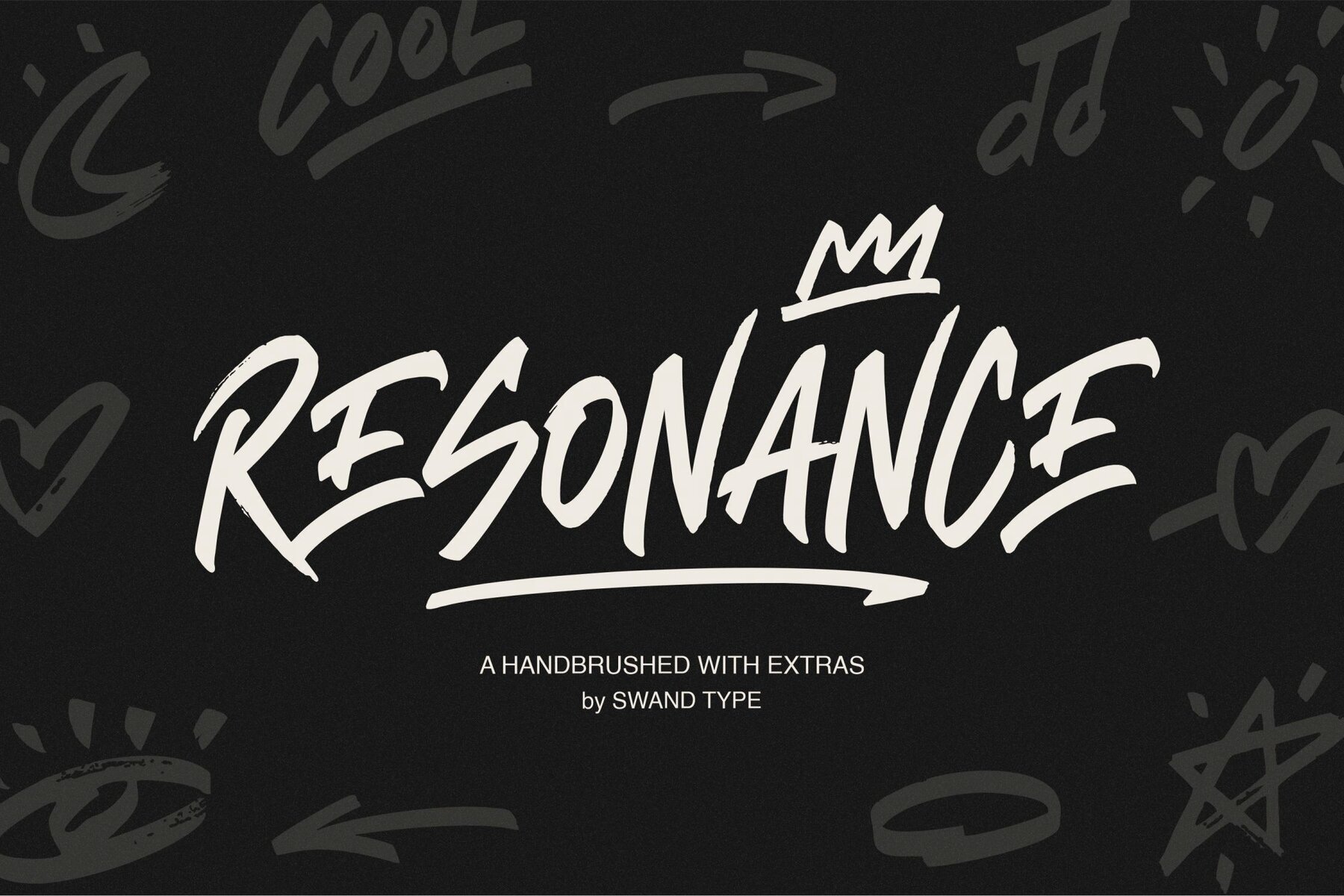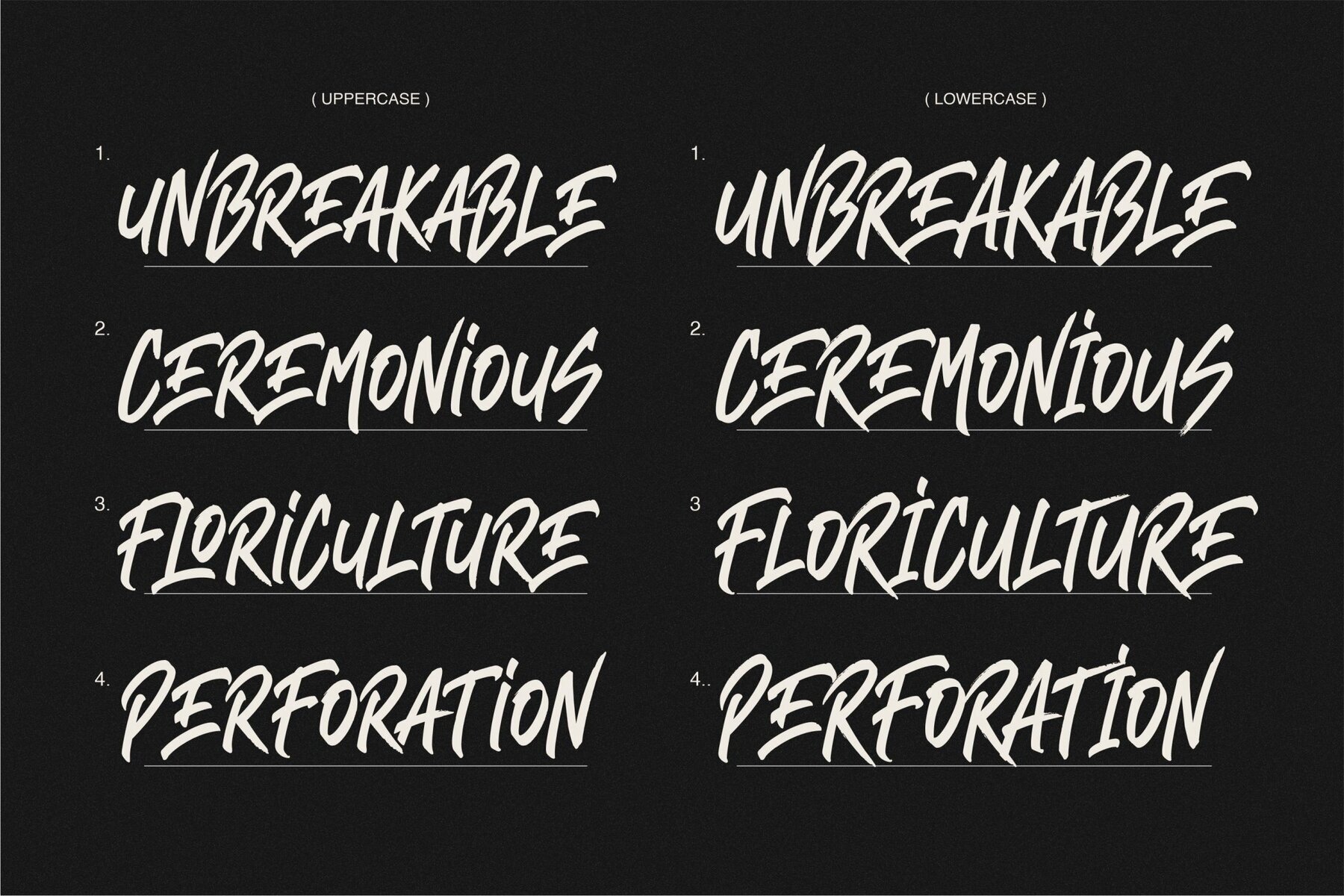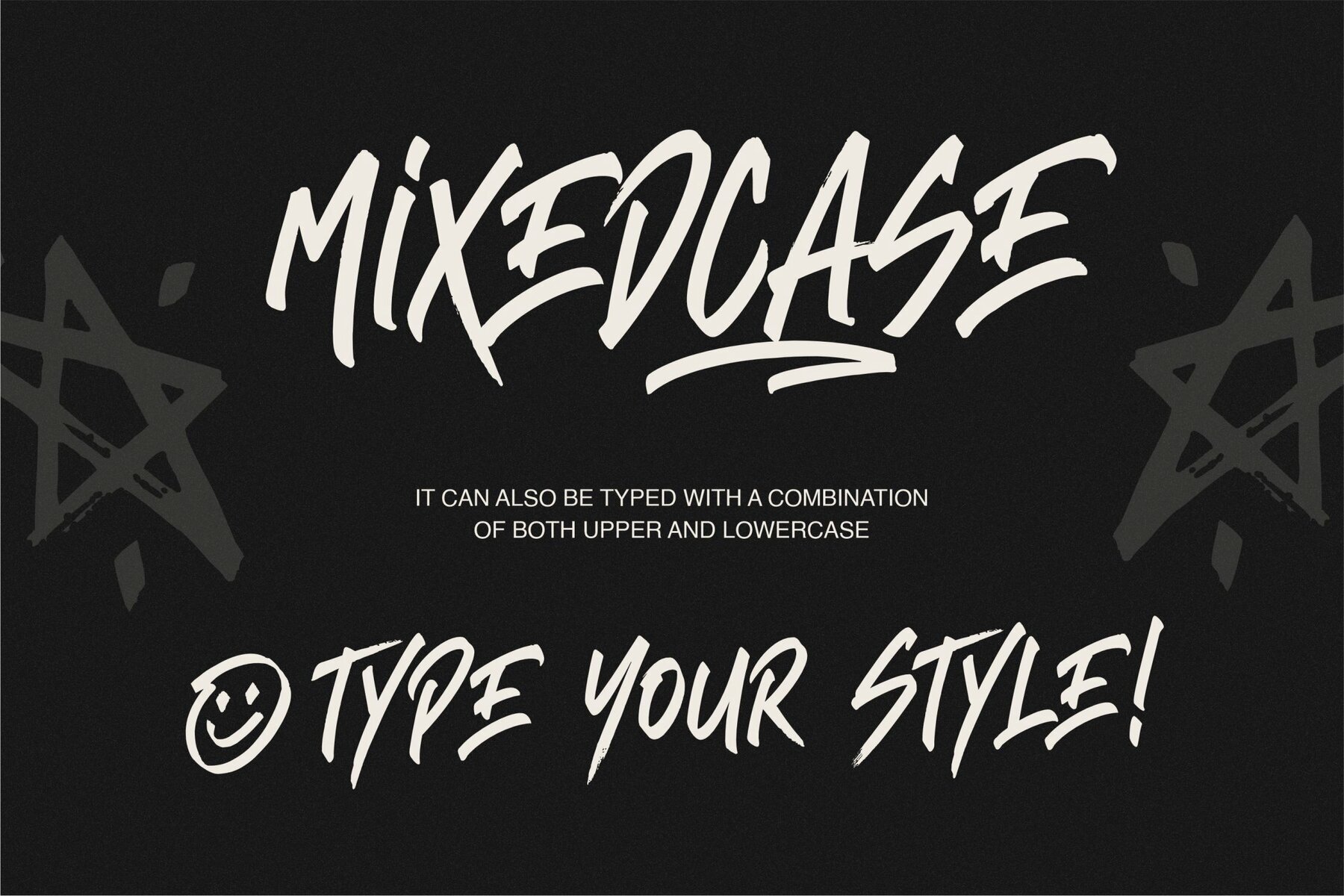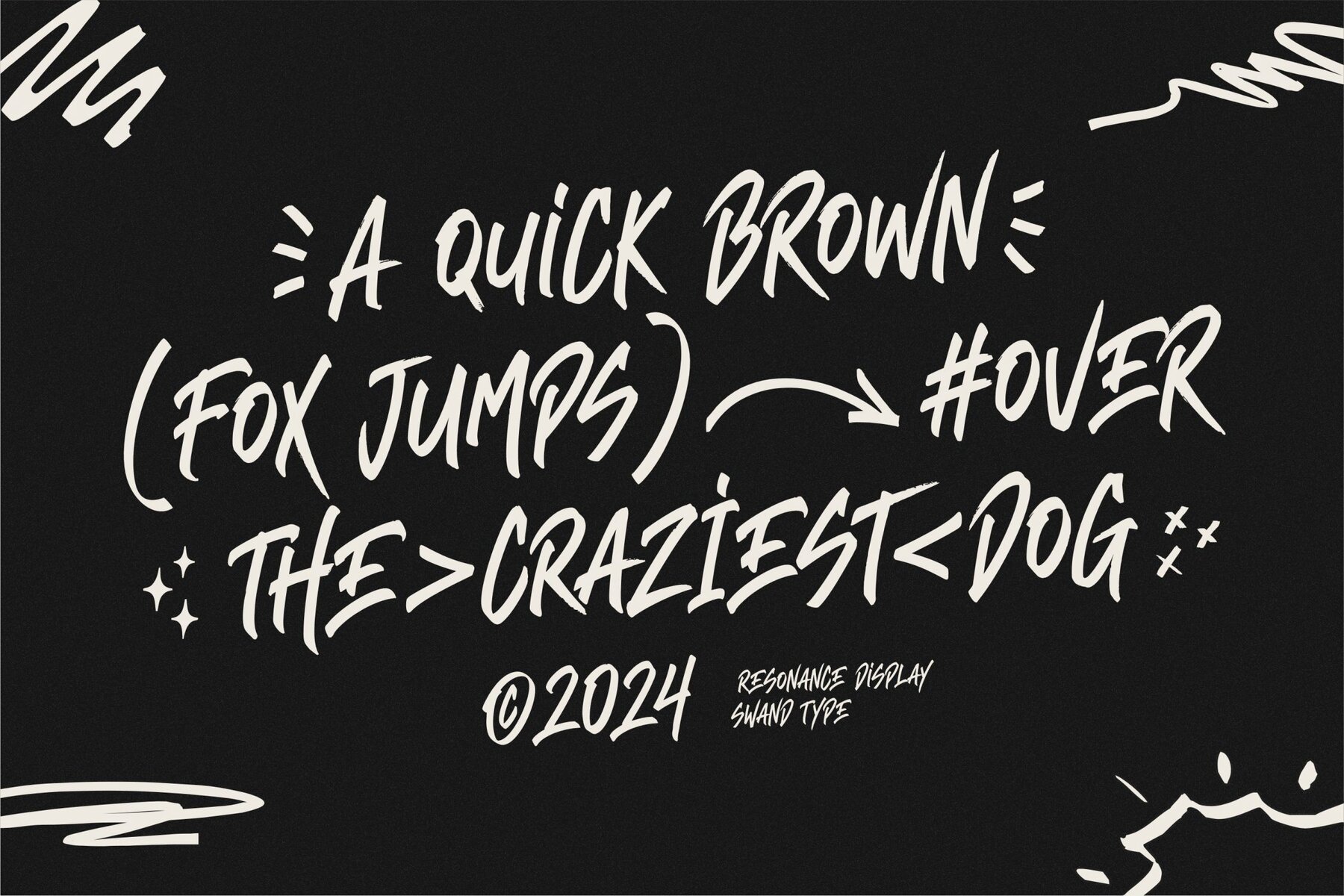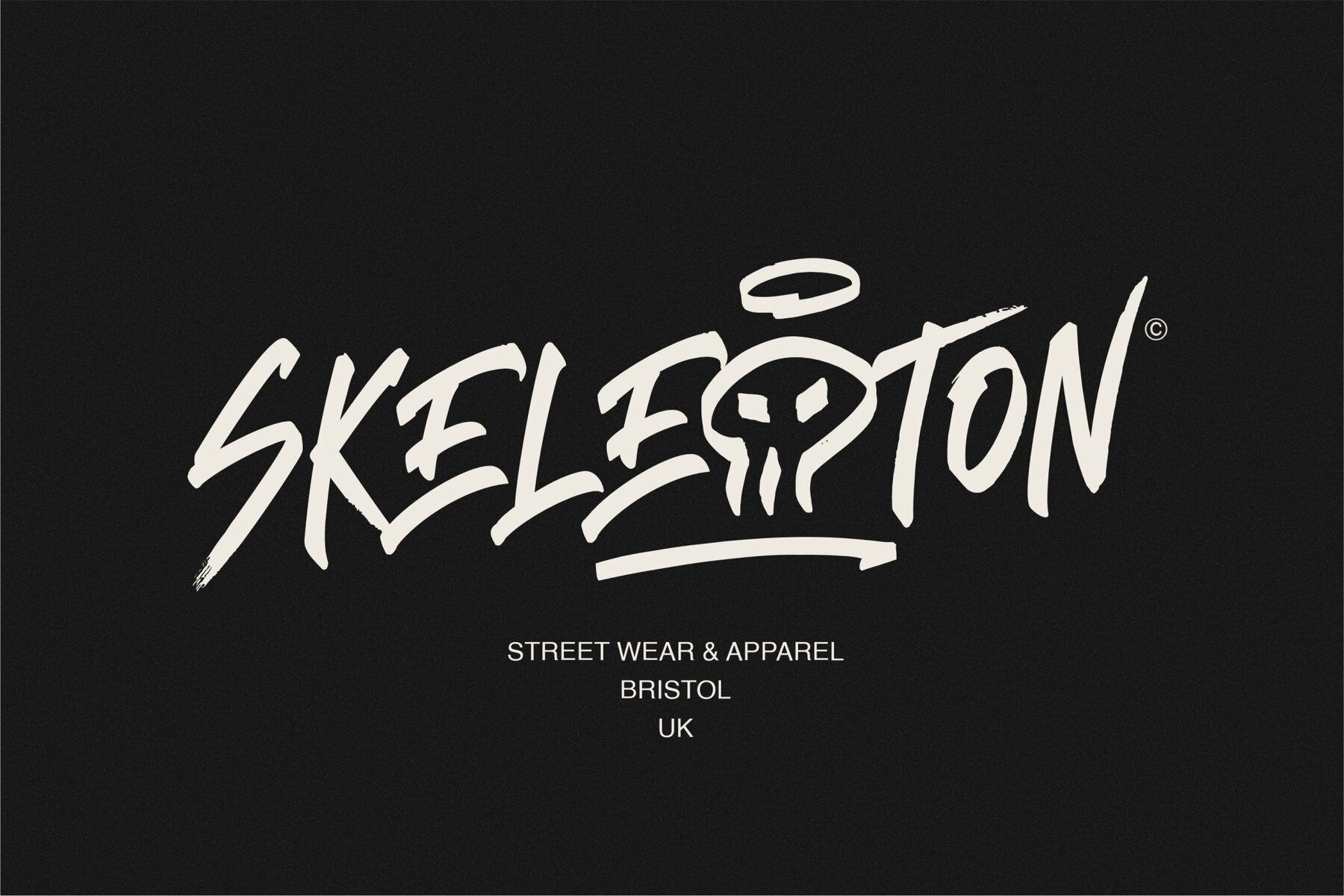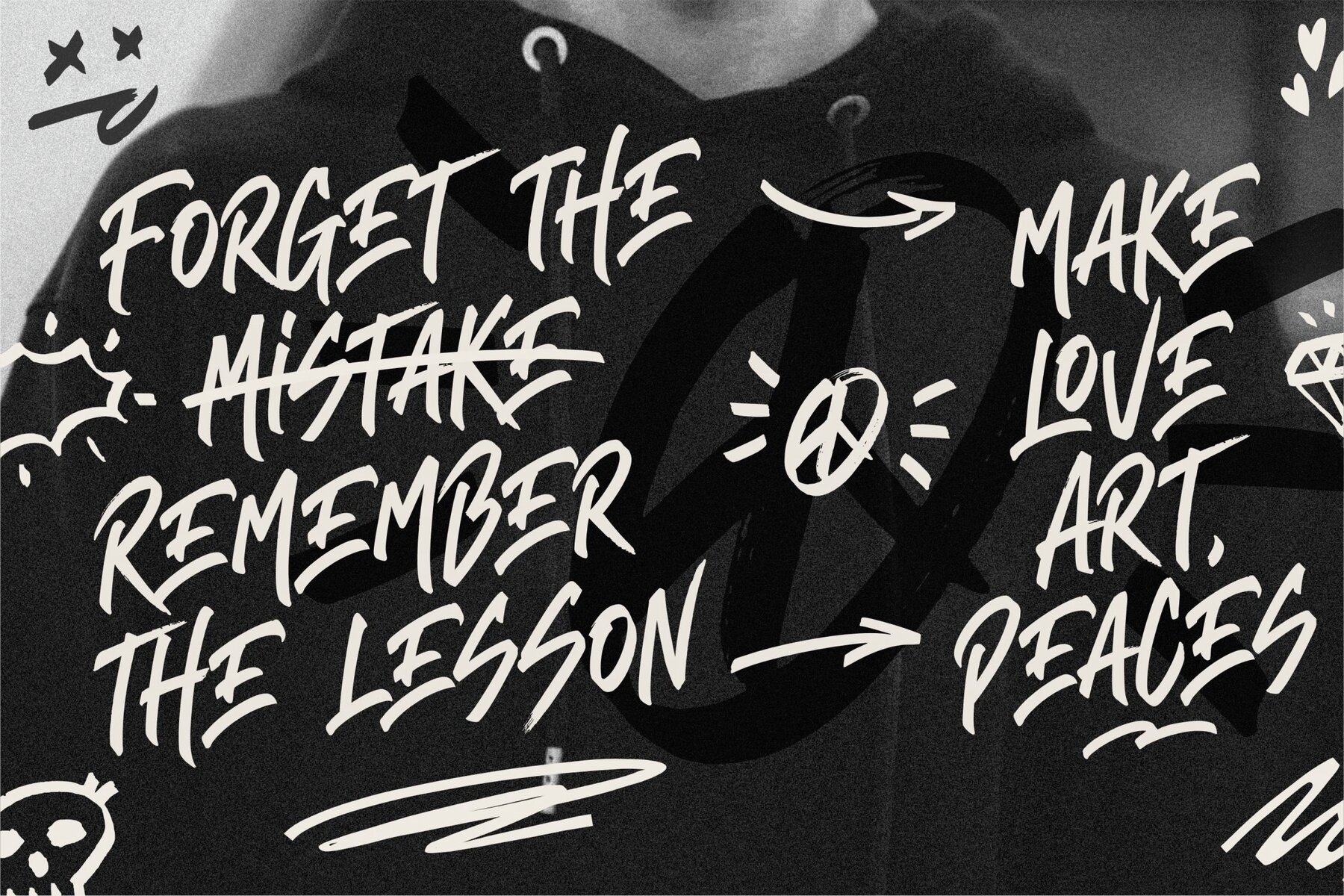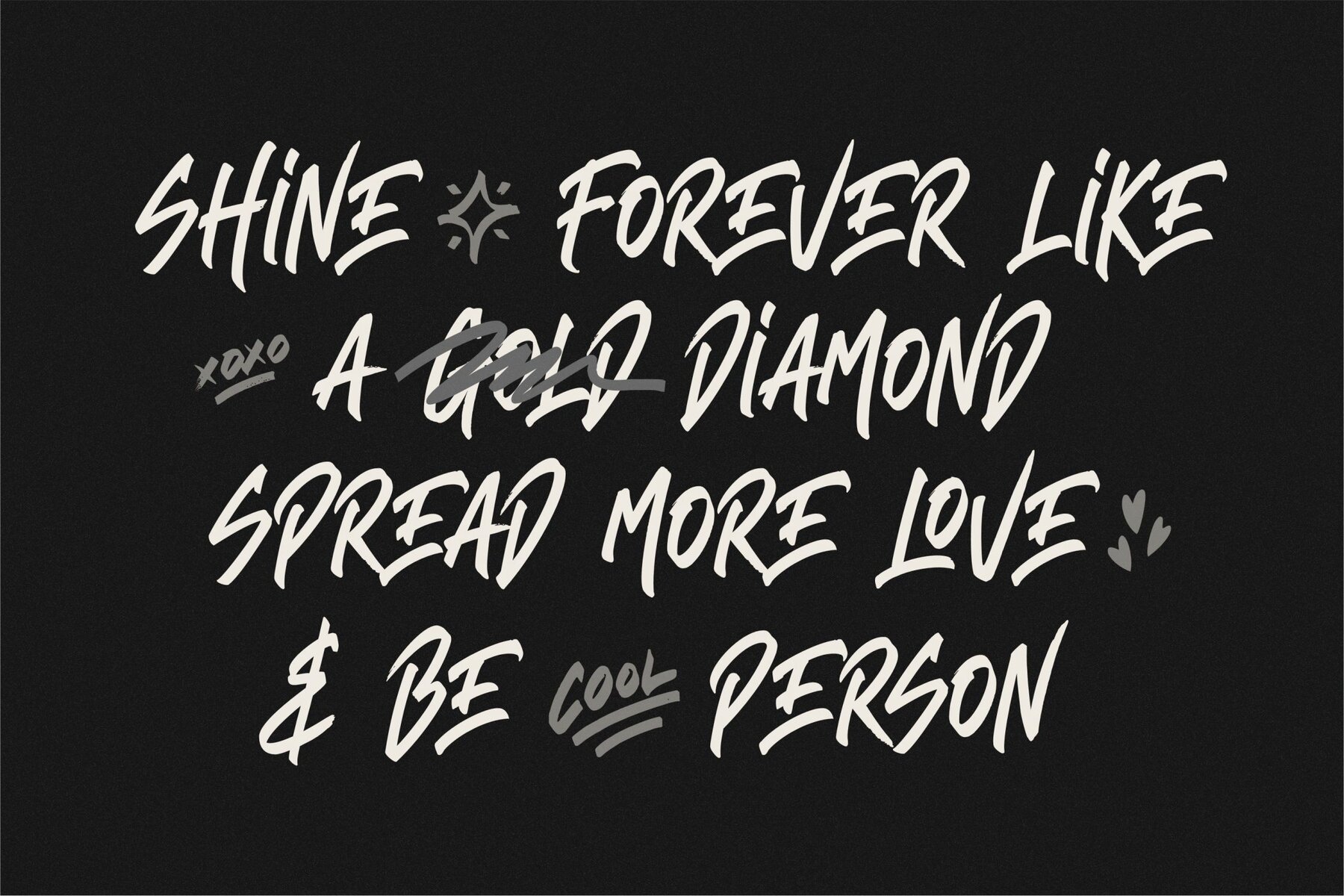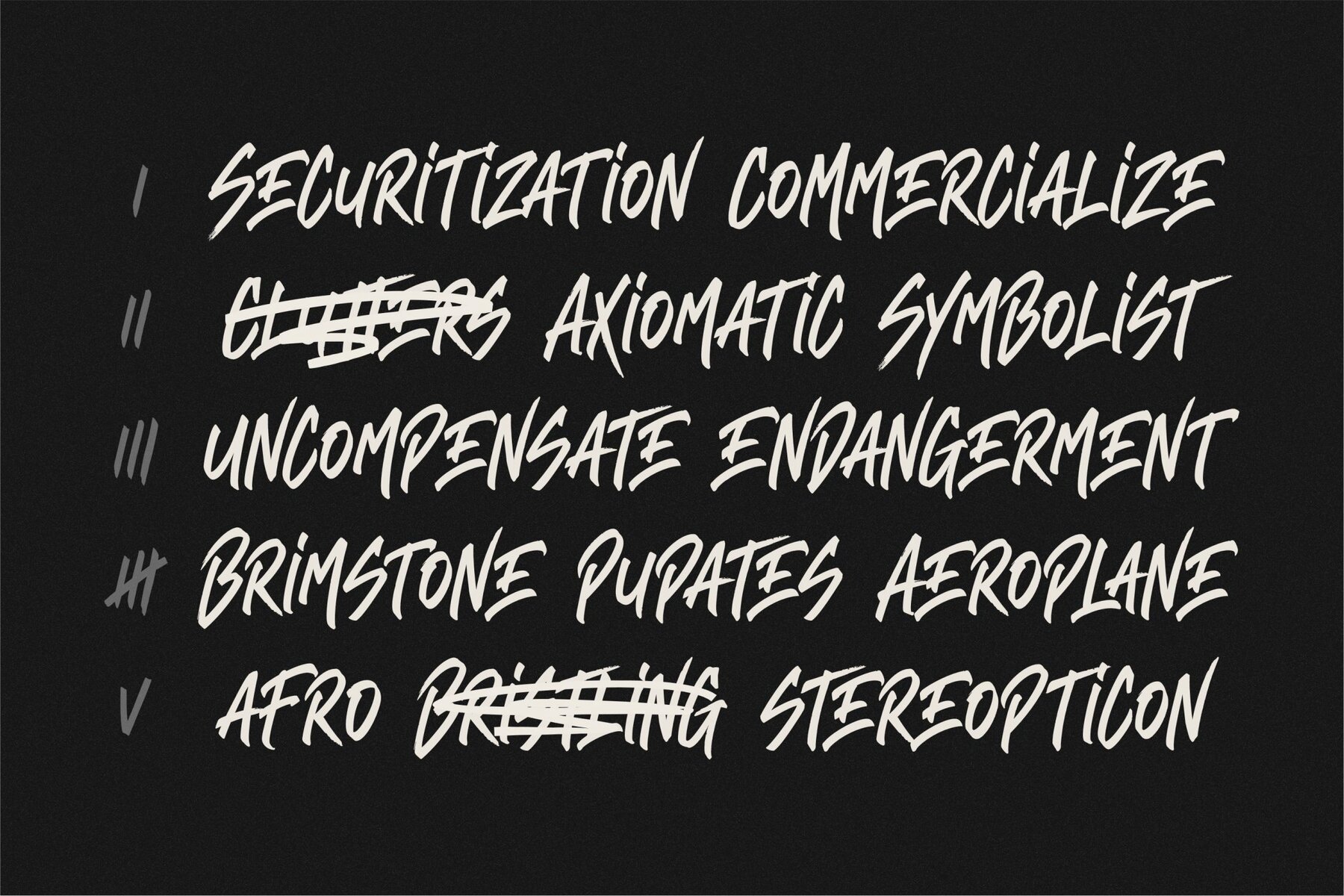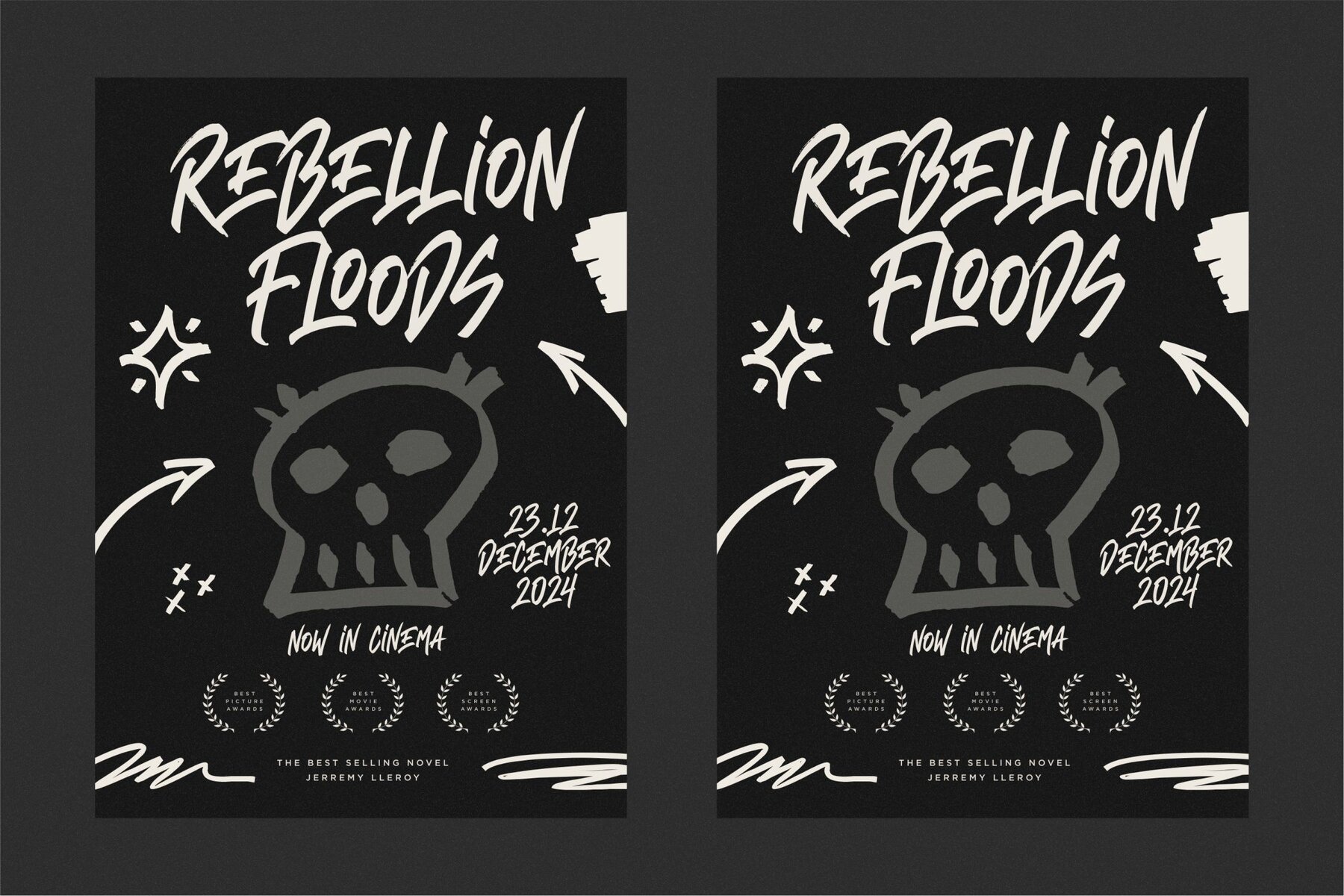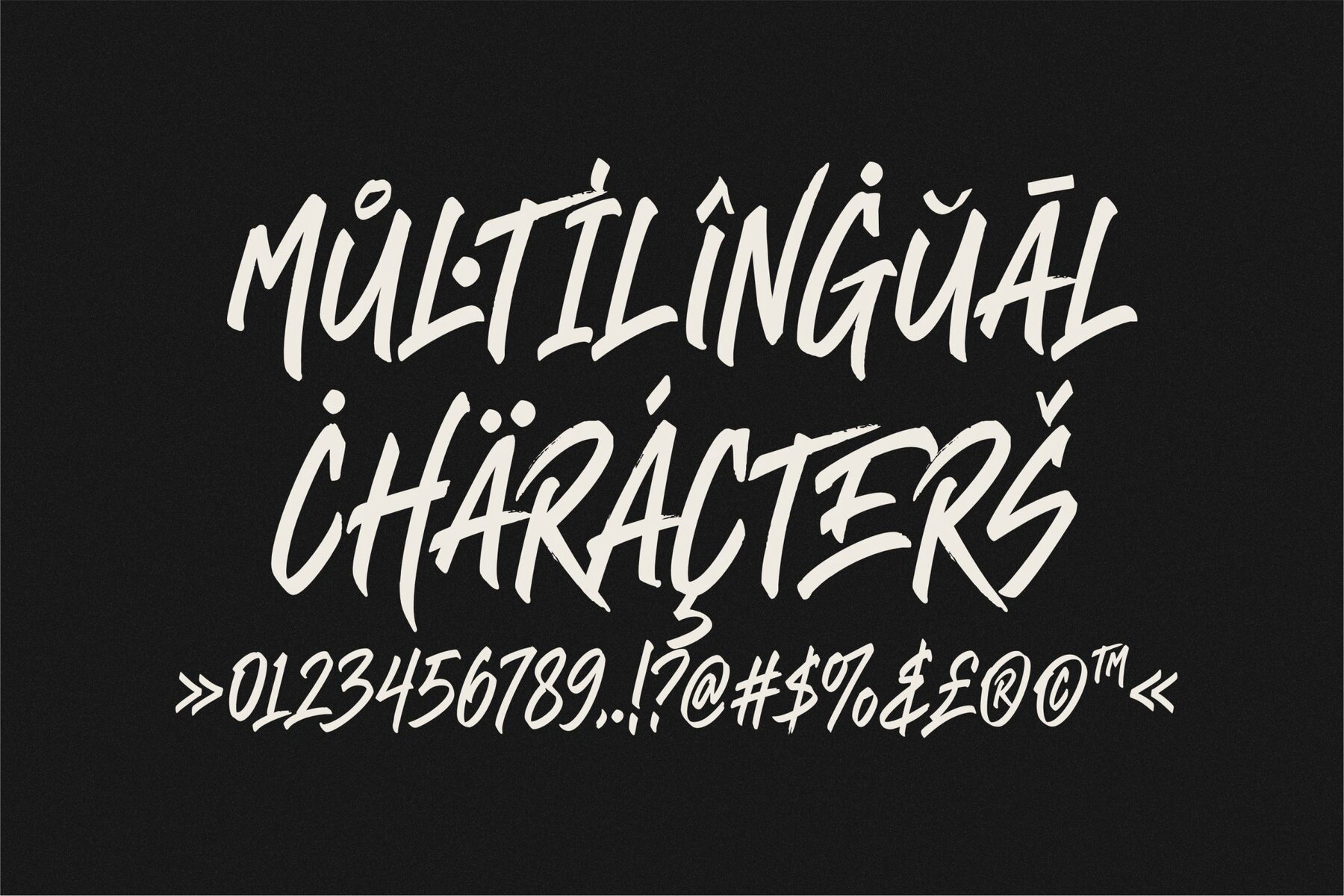
Resonance Font
Resonance is a handbrushed font that captures the beauty of natural pen strokes. Created with precision, this typeface brings an artistic and authentic feel to your projects. The font allows for a fluid combination of uppercase and lowercase letters, maintaining an organic flow in every word. Ideal for various applications—be it invitations, quotes, or logos—Resonance adds a touch of grace and originality to your designs. Features:Resonance: Expressive Handbrushed Typeface